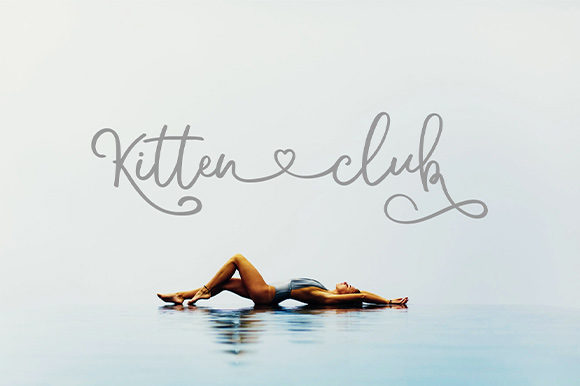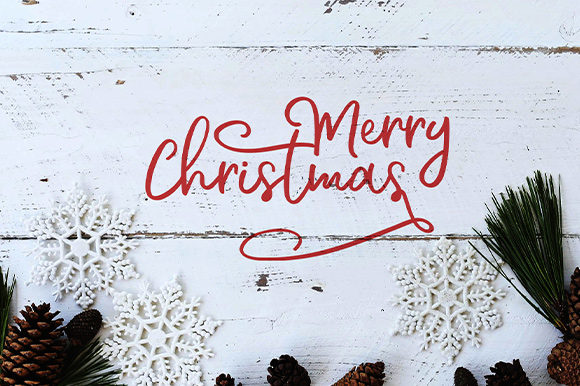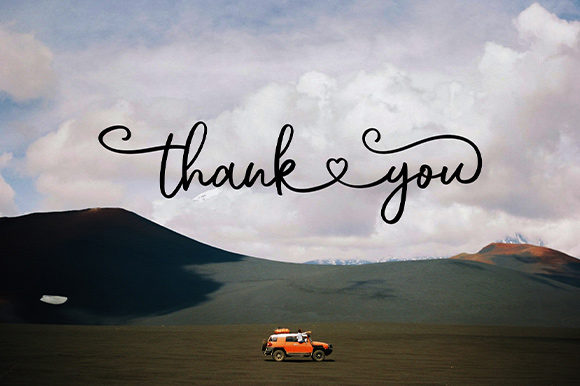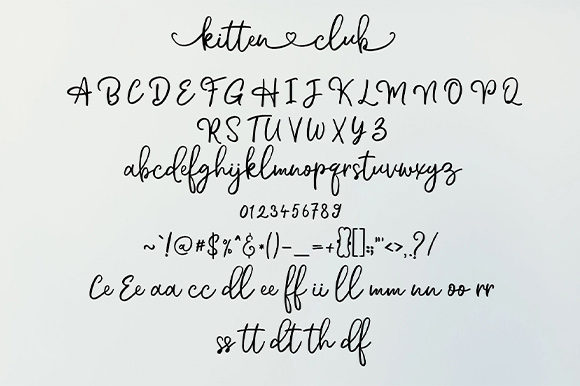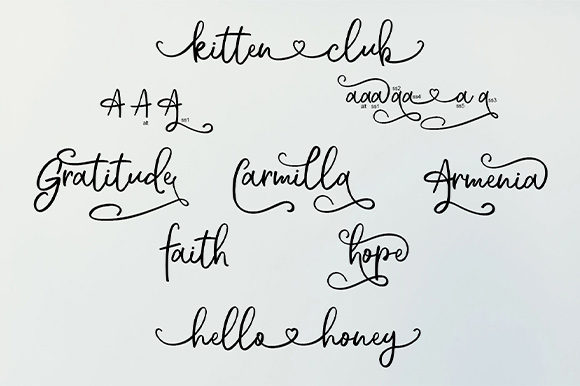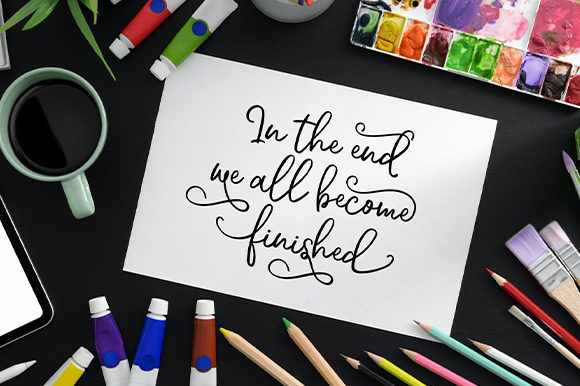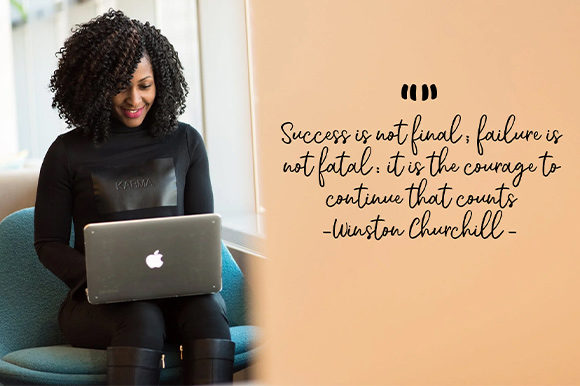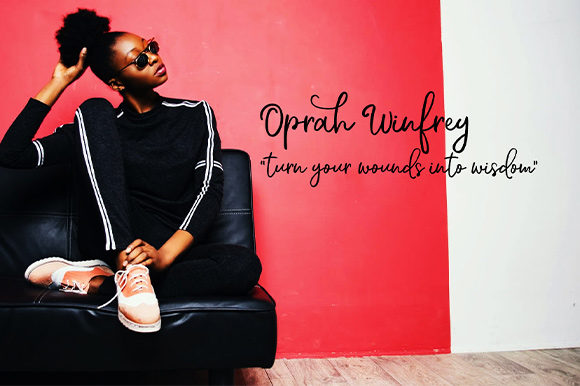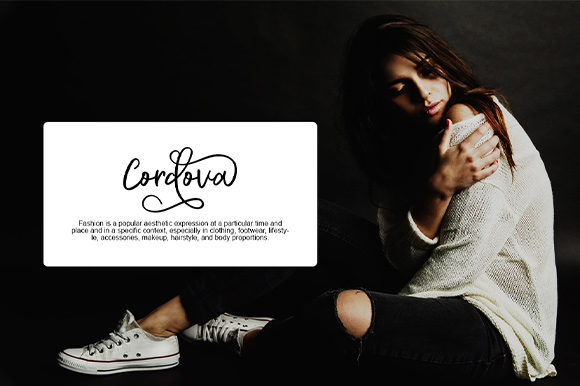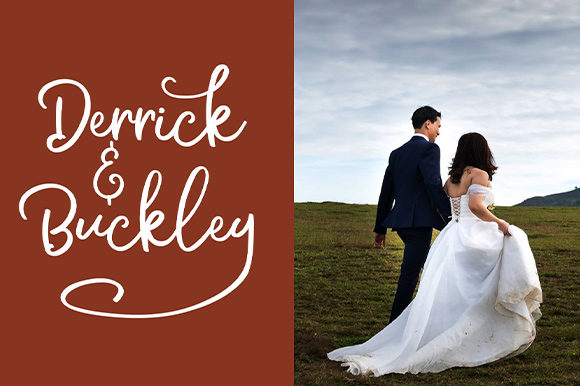
Kitten Club Font
About Kitten Club Font
Kitten Club is a charming and elegant handwritten font that brings a touch of sophistication and beauty to various design projects. Its versatile style makes it suitable for a wide range of applications, adding a delightful handwritten touch to each creation. Here are some creative ideas on how to use Kitten Club’s charming and elegant qualities:
1. Wedding Invitations: Create enchanting and romantic wedding invitations with Kitten Club’s elegant and flowing letterforms.
2. Thank You Cards: Design heartfelt and classy thank you cards that convey appreciation with a touch of charm.
3. Quotes and Greeting Cards: Use Kitten Club to design beautiful typographic posters, quote graphics, and greeting cards with an elegant flair.
4. Branding and Logo Design: Incorporate Kitten Club into brand logos and identity designs to add a personal and artistic touch.
5. Business Cards: Design elegant and memorable business cards that leave a lasting impression on potential clients.
6. Stationery: Create refined and stylish stationery sets, including notepads and letterheads, with Kitten Club’s charming lettering.
7. Social Media Graphics: Use Kitten Club in social media posts and graphics to add a touch of elegance to your brand’s online presence.
8. Product Packaging: Enhance product packaging with Kitten Club’s delightful handwriting to add a sense of uniqueness and allure.
9. Book Covers: Use Kitten Club’s elegant style for book covers, adding a touch of sophistication to literary works.
10. Menu Design: Design chic and visually appealing menus for restaurants or cafes using Kitten Club’s charming letterforms.
11. Magazine Titles: Use Kitten Club for magazine titles and headlines to create a captivating and eye-catching design.
12. Invitations and Announcements: Create charming and inviting invitations and announcements for various events.
13. Website Headers: Customize website headers and banners with Kitten Club’s elegant lettering for an artistic touch.
14. Event Signage: Use Kitten Club in event signage and posters to add an elegant and captivating element.
15. Gift Tags: Design lovely and charming gift tags for special occasions using Kitten Club’s delightful letterforms.
16. Calligraphy Art: Create stunning calligraphy art pieces with Kitten Club’s charming and graceful style.
17. Packaging Inserts: Use Kitten Club in packaging inserts to add a personal and artistic touch to product shipments.
18. Bridal Shower Decorations: Incorporate Kitten Club into bridal shower decorations for an elegant and sophisticated ambiance.
19. Fine Art Prints: Design fine art prints with inspiring quotes or phrases using Kitten Club’s captivating lettering.
20. Personalized Gifts: Create personalized gifts, such as custom prints or stationery, with Kitten Club’s elegant and charming handwriting.
Kitten Club’s charm and elegance make it a versatile font that can enhance a wide variety of design projects. Embrace its delightful and sophisticated style, and let your creativity soar as you explore the endless possibilities this charming handwritten font has to offer!